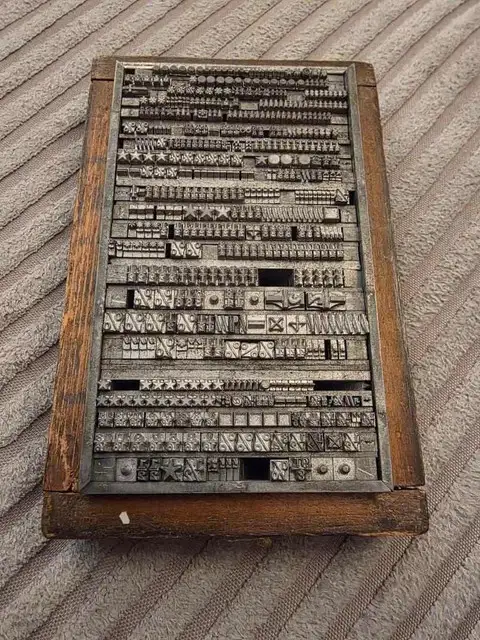
Identification help needed (my dads old stuff)
My father passed away just before christmas and i have been sorting a lot of stuff. He apprenticed in the printing trade and went on to work for the Times and then the Daily Mirror.
A number of years ago he showed me this box of typesetting characters that he had made. He said that all of the guys in print made their own boxes (spares mainly) and carried them round all day for when odd characters were needed, and i just thought it was brilliant. I have found the box which has brought back great memories.
What i am hoping someone knows is what it was called. My dad told me the name that all print guys called it (was an odd name i recall) but for the life of me i cannot remember what the name was, and would love to know.
Is there any chance you could post a photo of this box and its contents? It may help.
I worked as a typesetter on newspapers and never encountered the "personal box" that you describe.
However, I worked on provincial newspapers and your dad worked on Fleet Street. There is a big difference!
Whereas I was always paid by the hour, Fleet Street ran on "piece work" - payment calculated by the amount of type you had set.
I would imagine this box contains some brass Linotype matrices. They are probably for quite obscure characters like a percentage sign: % or asterix * etc.
I'm guessing that someone paid by results wouldn't want to waste time looking for the matrix that could produce these characters, so would "acquire" their own set, for personal use.
Those are my thoughts, but I may be wrong. A picture of the box and contents may shed more light on the matter.
Hi Dave
Many thanks for the reply and yes i believe you are spot on with your assumption, the box is full of special characters.
Hi Alchopone - The picture isn't quite what I was expecting. It is foundry type and not the Linotype matrices that I thought it would be.
Foundry type was seldom used in the production of national newspapers. Do you think your dad may have worked in the "general trade" before getting a job on Fleet Street?
Some of the stuff may have been used in the "Display advertising" section of a newspaper, but I doubt it.
Did you know it would be quite easy to take a print from the type? If there is a letterpress printers near you with a flat bed proof press they could ink it up and produce a print, or several, as a memento of your dad.
If you are feeling more ambitious, and practical, you could make it feature in a coffee table like this one that a site user has made: Letterpress Coffee Table
Back to the main point of your question, did your dad call it a "fudge box?"
Fudge box does sound familiar, but not sure if that was the one, or my brain playing tricks on me. My dad did his apprenticeship with a company called McCorquodale and company ltd (i actually found the appenticeship indenture that was drawn up), so perhaps it was there that he used it.
Love the idea of getting a print from it. I used to do that with the single strips that his colleagues made up with my name on, when he took me into work as a little boy. Will have a look around for a printers.